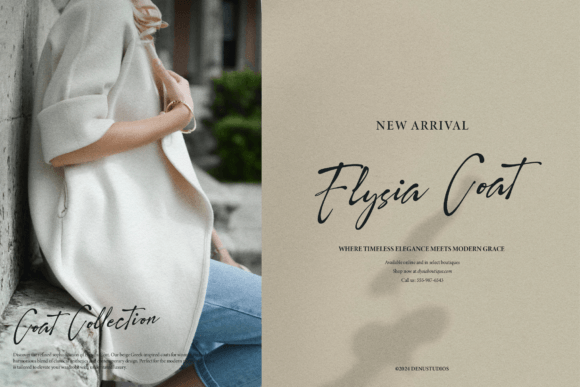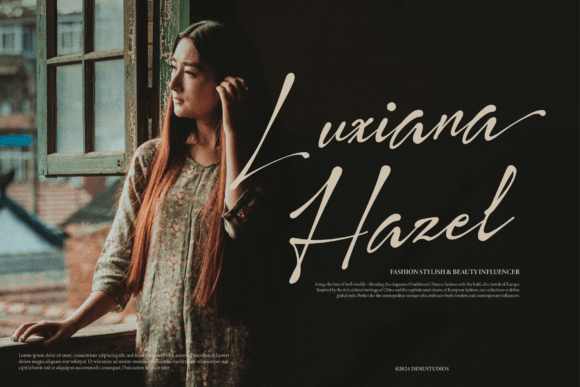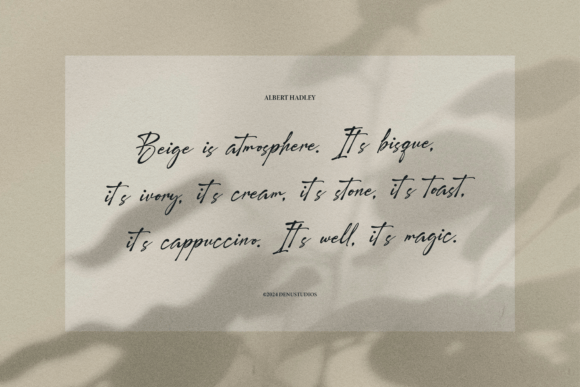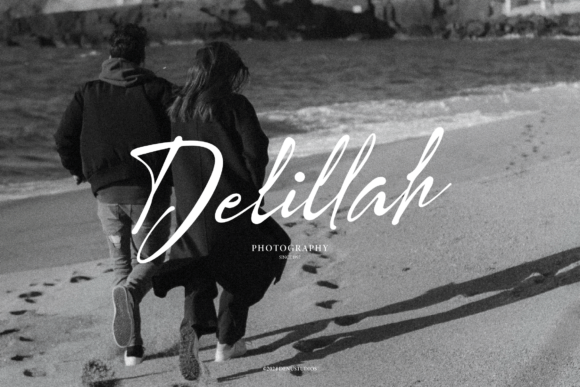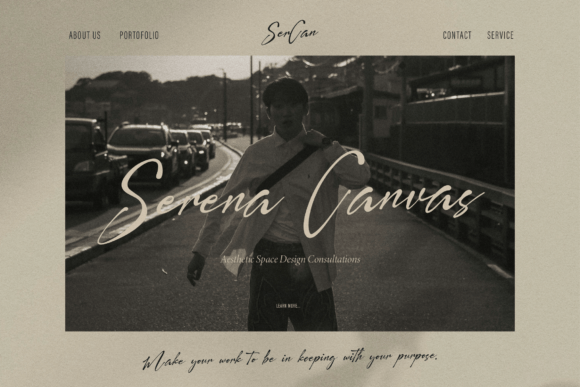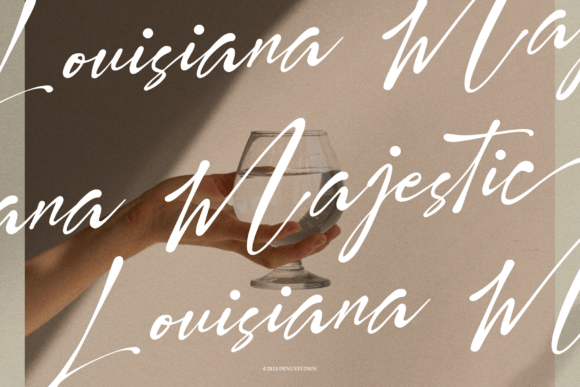
Introduction to Pegiblue Font Font
Fonts play a crucial role in design, and the Pegiblue Font font is a typeface that brings both character and versatility to any project. Whether you’re working on a branding project, a website, or a print design, the Pegiblue Font font offers a unique style that can elevate your work.
Pegiblue is the epitome of timeless elegance.
This signature script font boasts over 290 glyphs, complete with ligatures, alternates, and multilingual support, making it ideal for branding, logos, wedding invitations, and luxurious stationery Its fluid strokes and sophisticated design effortlessly add a refined touch to any project, capturing the essence of classic beauty with a modern twist.
Key Features of Pegiblue Font Font
Why Choose Pegiblue Font Font?
The Pegiblue Font font is more than just a typeface – it’s a design tool that helps you communicate your message with style and clarity. Its unique character set and versatile design make it suitable for a wide range of applications, from elegant invitations to bold headlines.
With its carefully crafted letterforms and balanced proportions, the Pegiblue Font font ensures readability and visual appeal across all mediums.
What makes Pegiblue Font font special?
The Pegiblue Font font stands out with its unique design, exceptional readability, and versatility across various design applications.